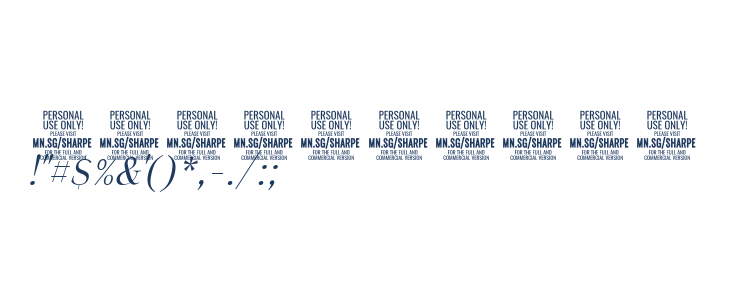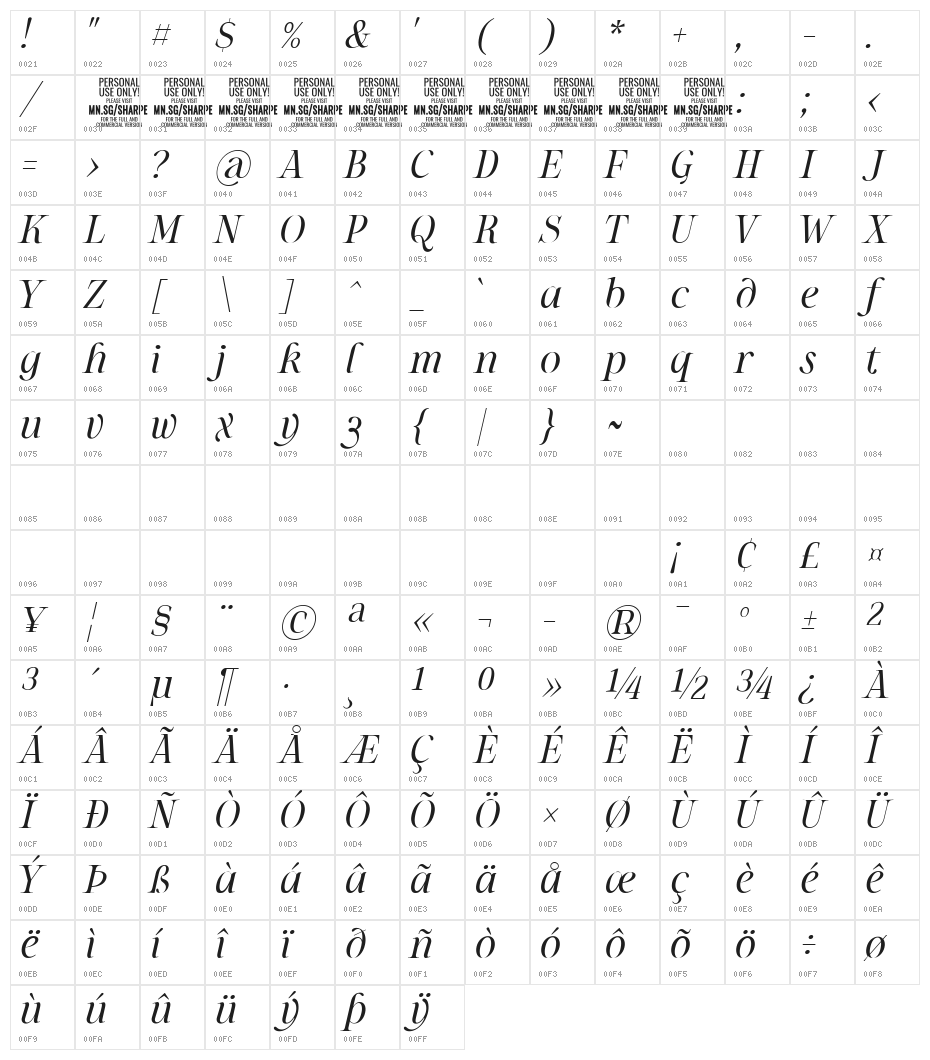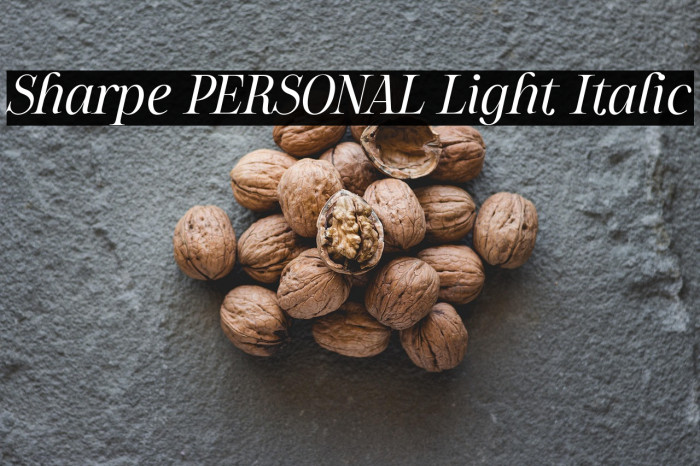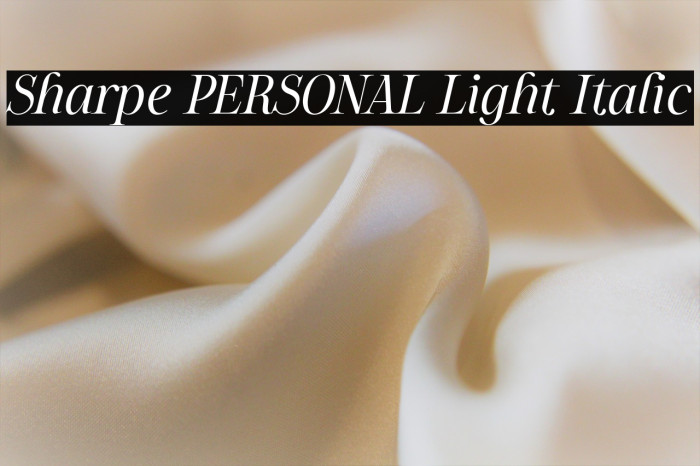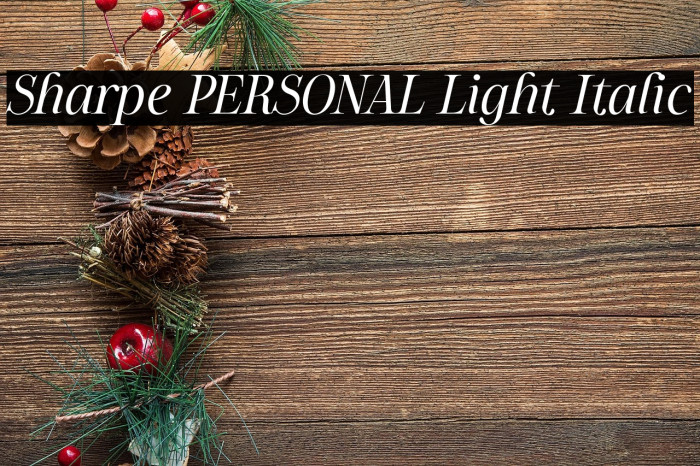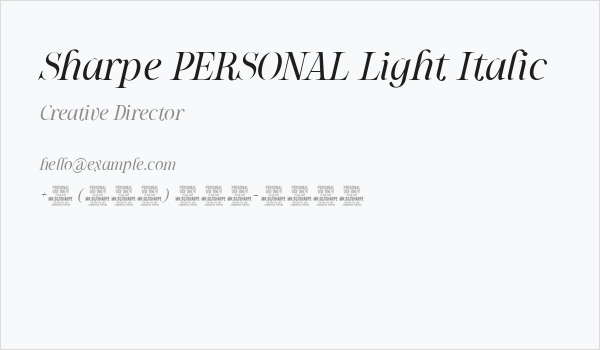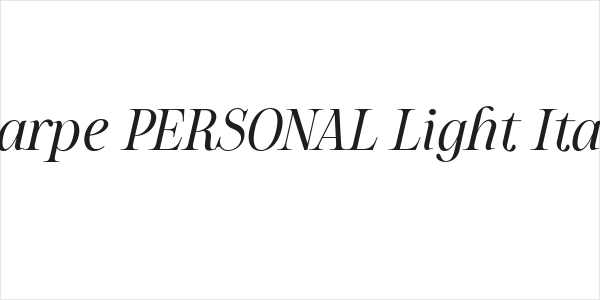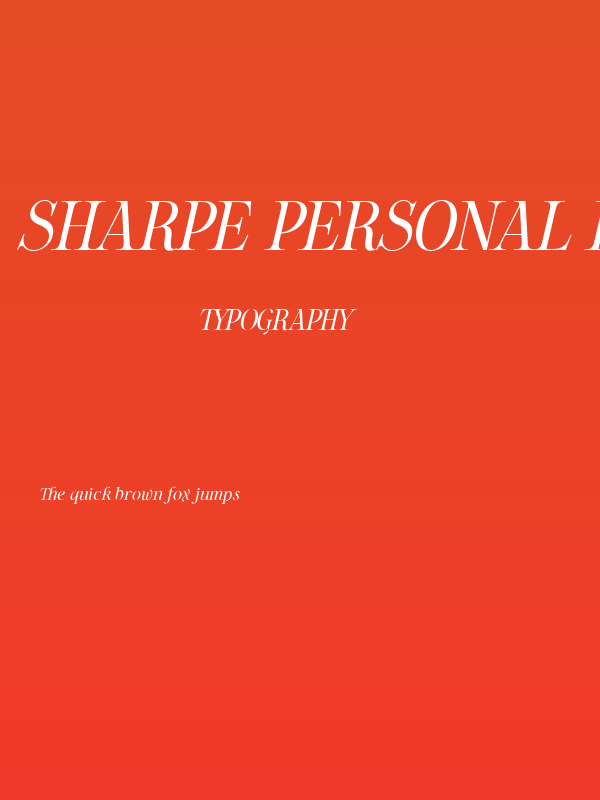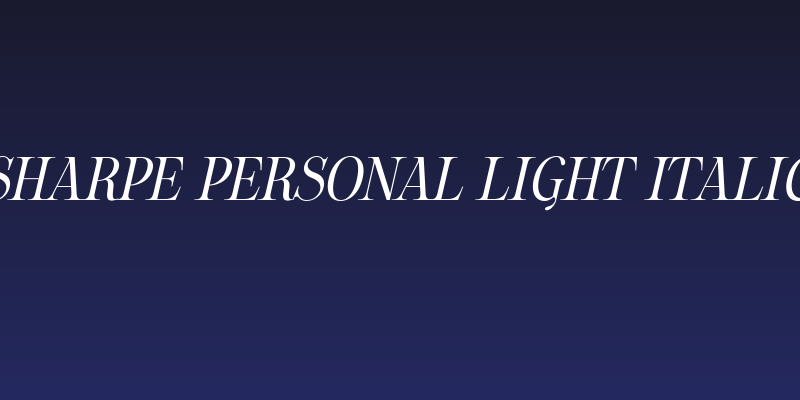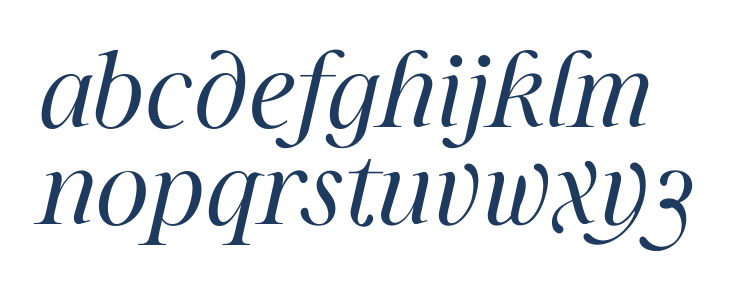
Sharpe PERSONAL Light Italic Font
Sharpe PERSONAL Light Italic Description
This elegant serif font features a light and graceful italic style, characterized by its smooth curves and refined strokes. The uppercase letters exhibit a classic formality, while the lowercase letters maintain a fluid and sophisticated appearance. The font's design includes a moderate contrast between thick and thin strokes, enhancing its readability and aesthetic appeal. The special characters and numbers are crafted with the same attention to detail, ensuring consistency throughout the typeface. This font exudes a timeless charm, making it suitable for a variety of design applications.
Overall StyleClassic
Proposed ProjectsIdeal for wedding invitations, luxury branding, editorial design, and elegant packaging.